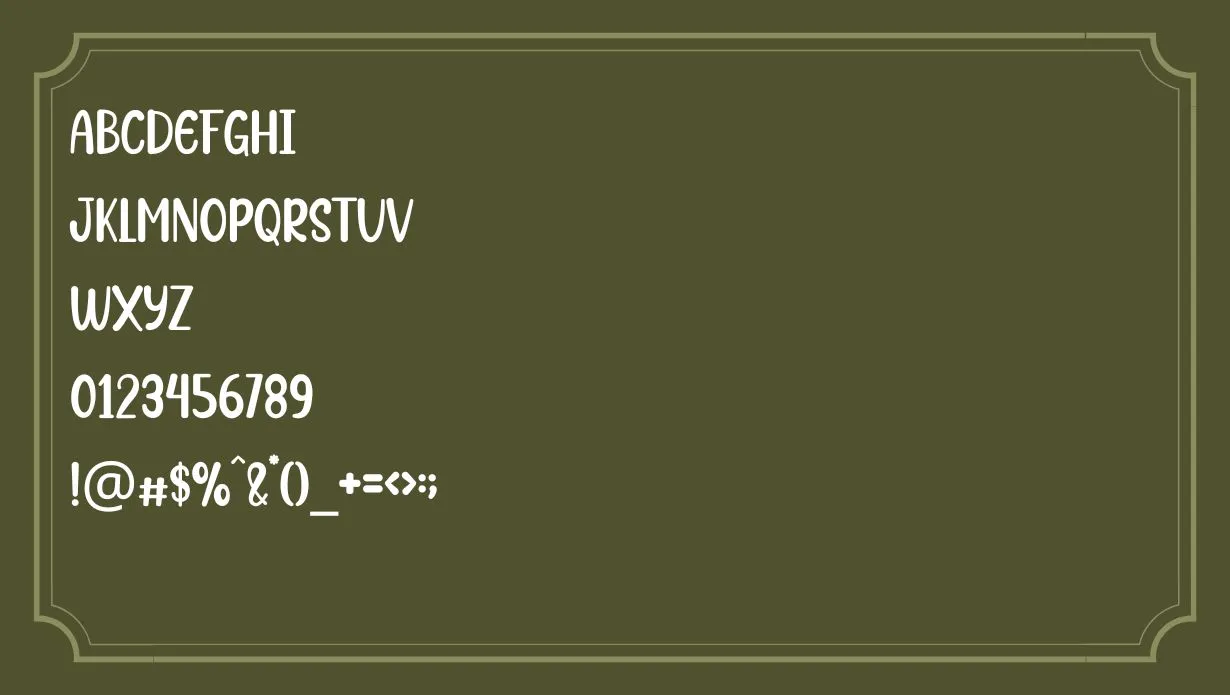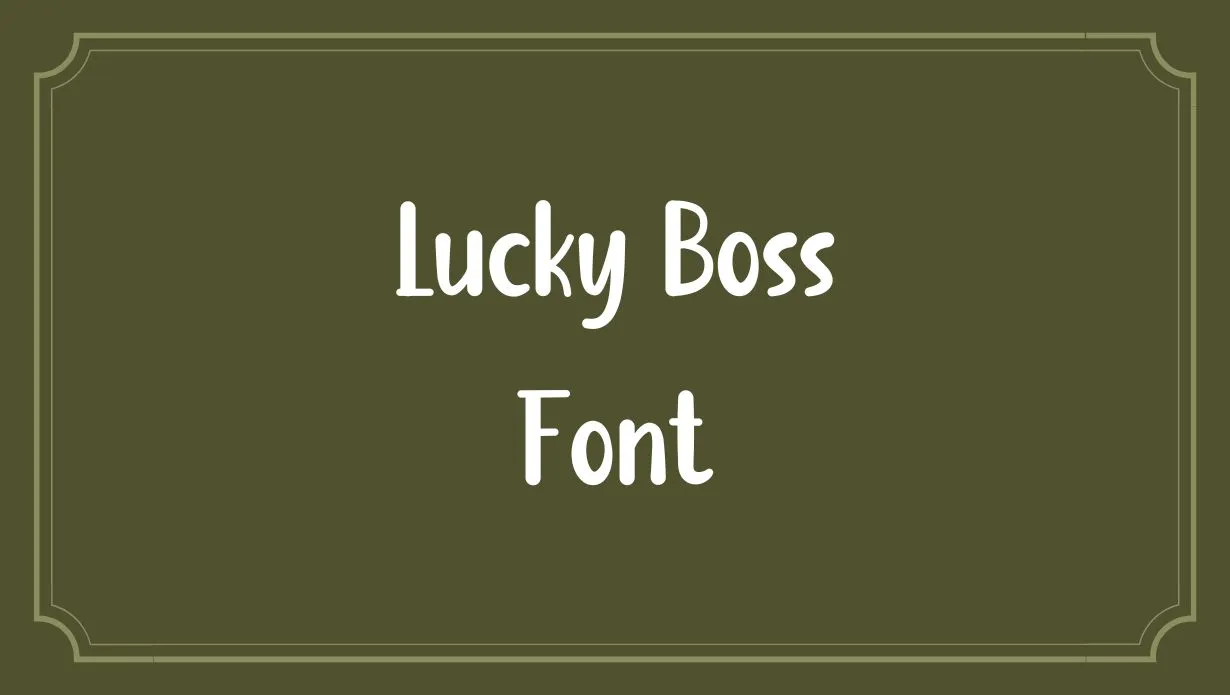
About Lucky Boss Font
Rantautype created this attractive fancy design. Users can try Lucky Boss Font in any design project that needs a unique and attractive look. This typeface is best to create unique titles and bold text. The font designs can also be generated by using an online generator tool.
If you want to increase the prominence of your project in front of your client, use this style which is a great option. From nowhere font is a nice pairing style with this font.